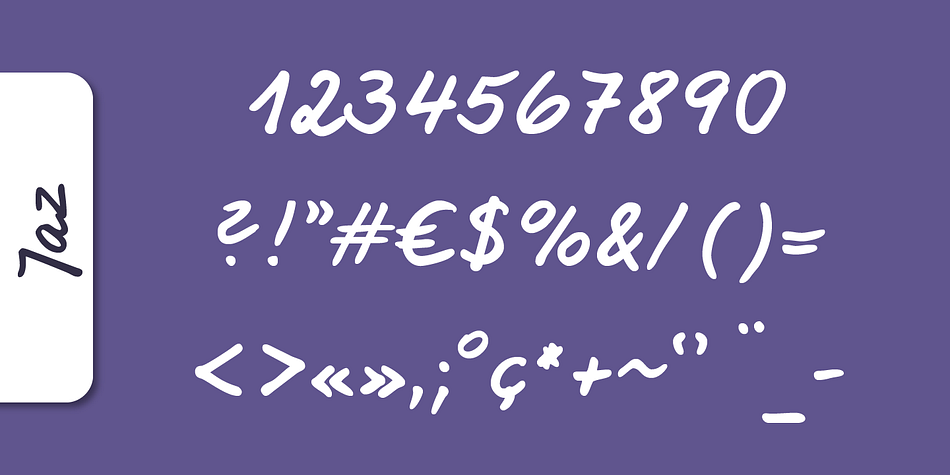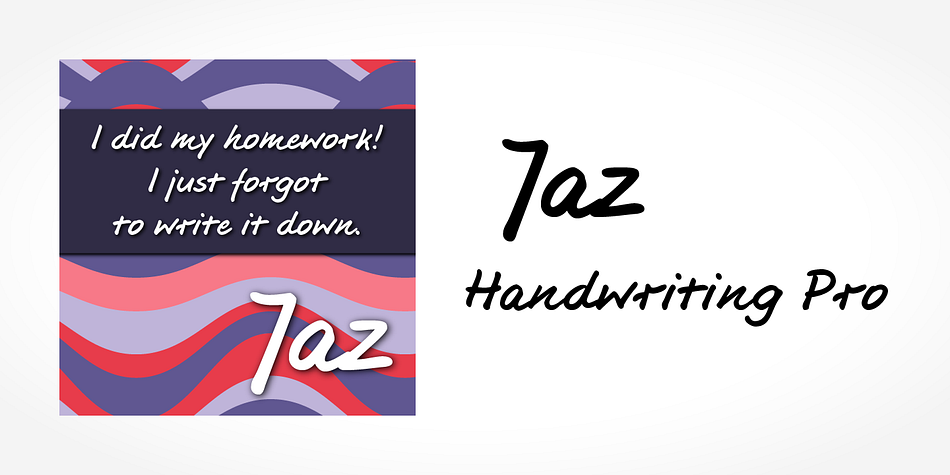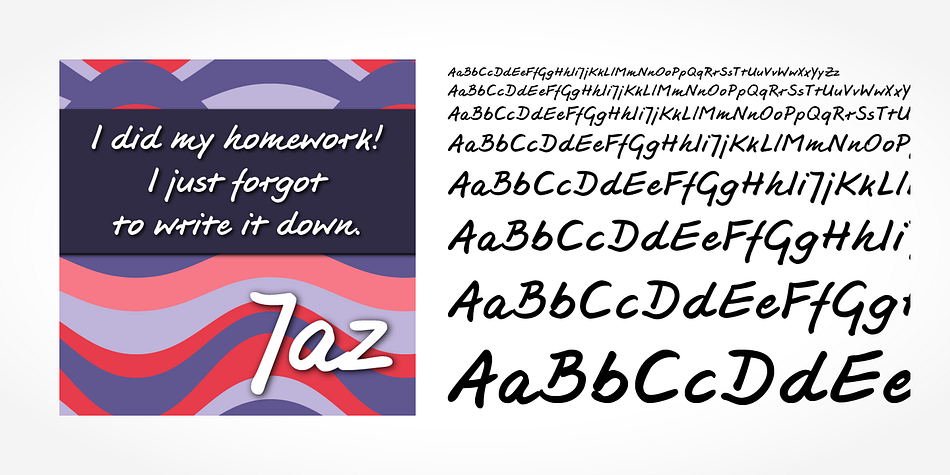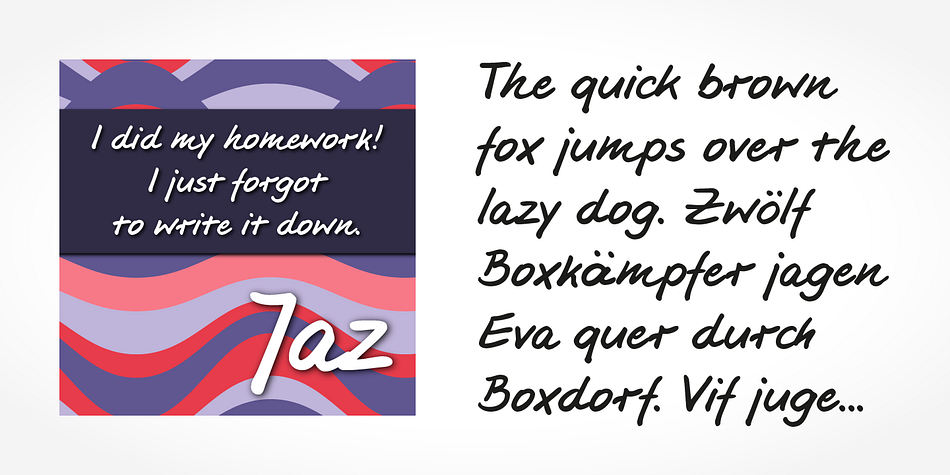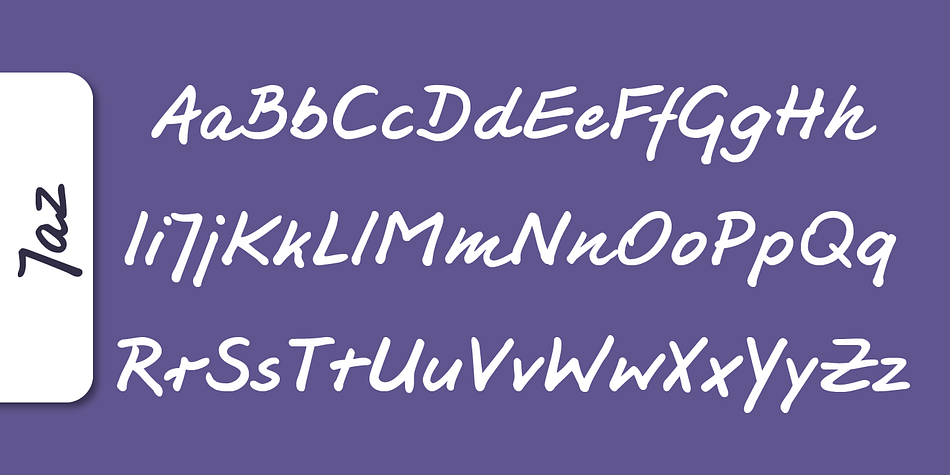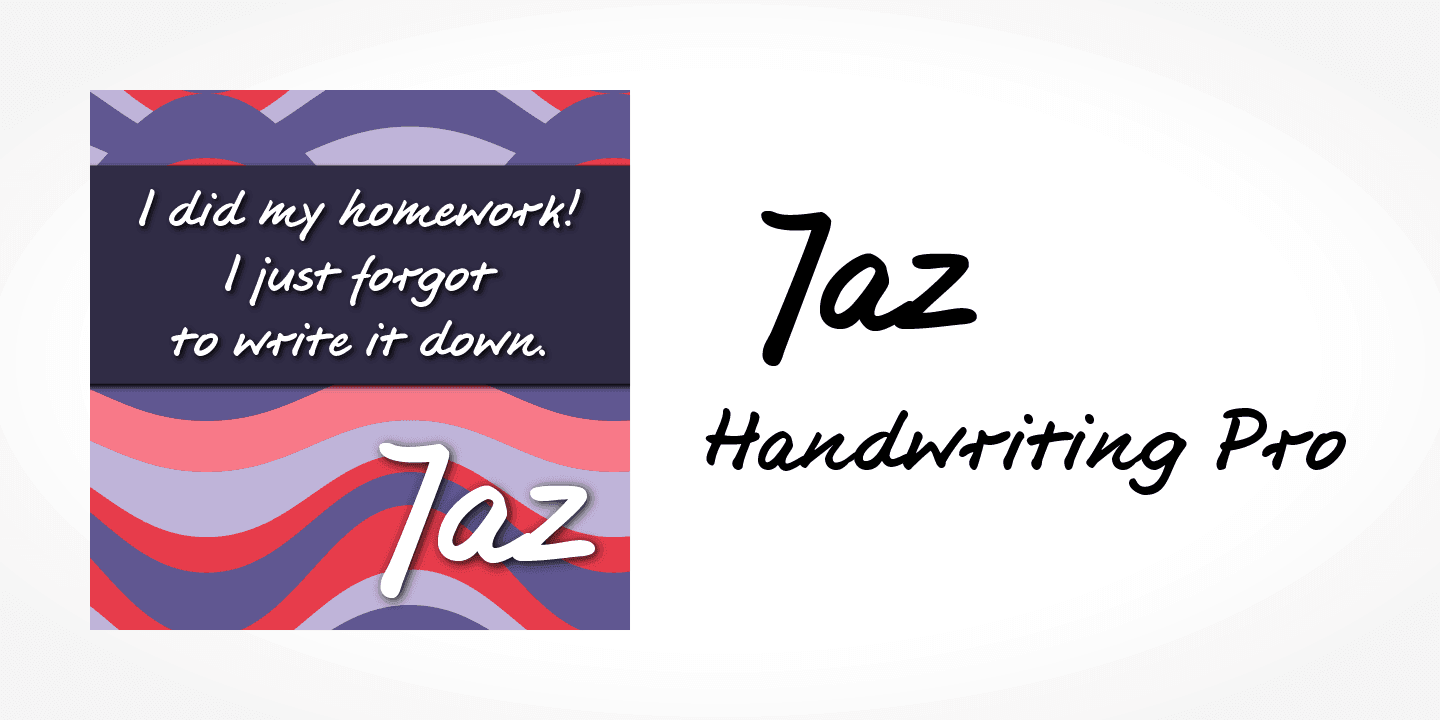
Jaz Handwriting Pro is a hand drawn font published by SoftMaker.
Digitized handwriting fonts are a perfect way to give documents the “very special touch”. Invitations look simply better when handwritten than when printed in bland Arial or Times New Roman. Short handwritten notes look authentic and appealing. There are numerous occasions where handwritten text makes a better impression.
“Jaz Handwriting Pro” is a beautiful typeface that mimics true handwriting closely. Use Jaz Handwriting Pro to create stunningly beautiful designs easily.